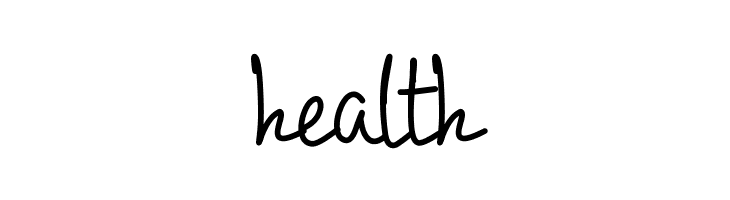
A lively and dynamic handwritten font with fluid, connected strokes.
A playful, handwritten font with fluid, irregular strokes.
A dynamic, cursive script font with a personal and artistic touch.